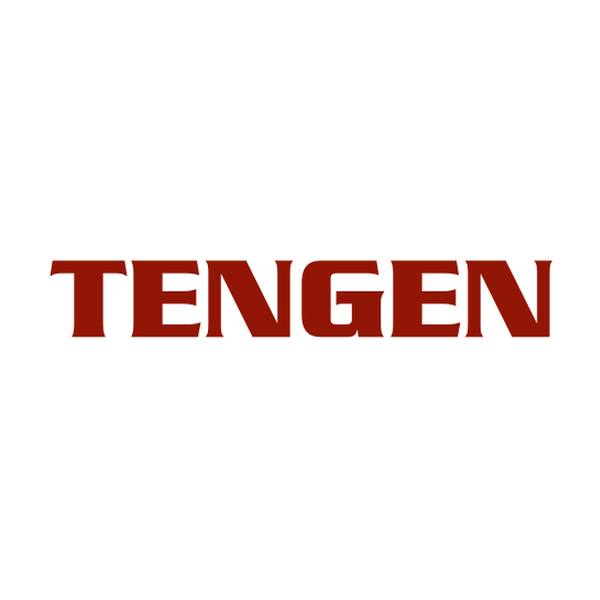
Tengen Logo Font
Company & ConsolesTengen is a former video game publisher and developer known for its association with the NES and arcade games.
The Tengen logo uses a font that is highly reminiscent of Serpentine Bold created by Dick Jensen in 1972. Serpentine is a square-shaped font that bears resemblance to Eurostile, but with a more pronounced contrast between thick and thin strokes.